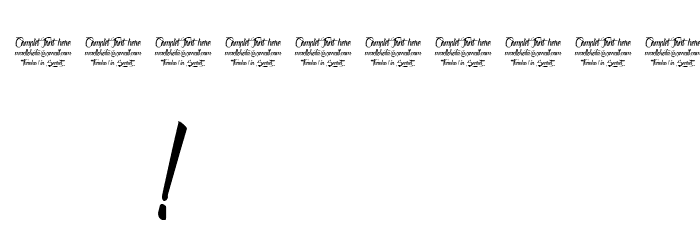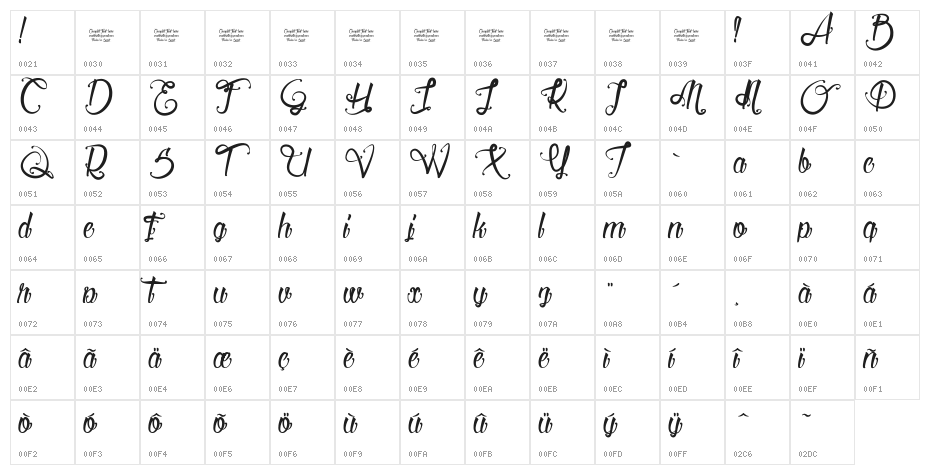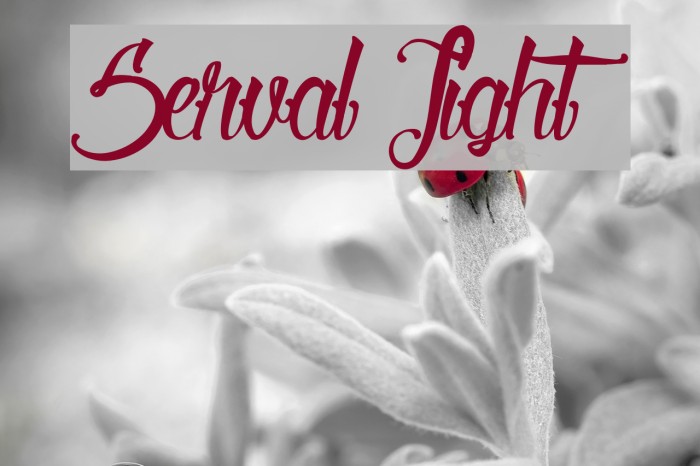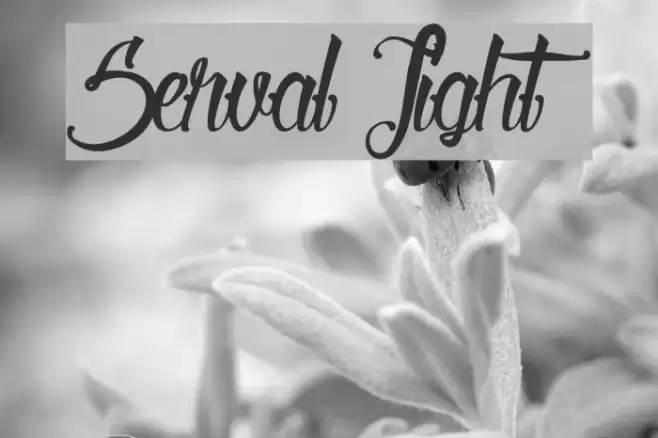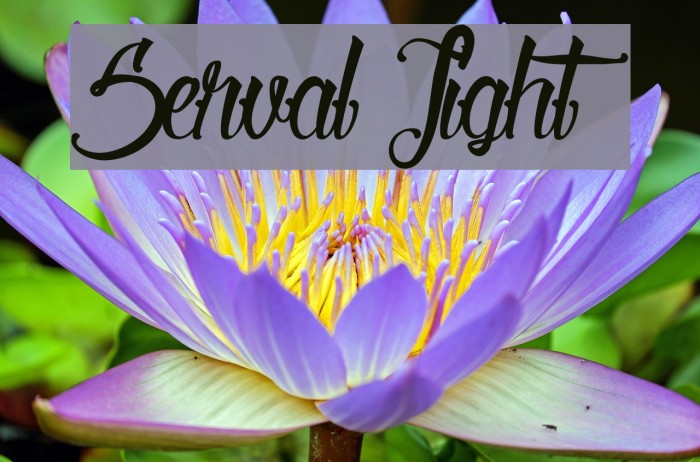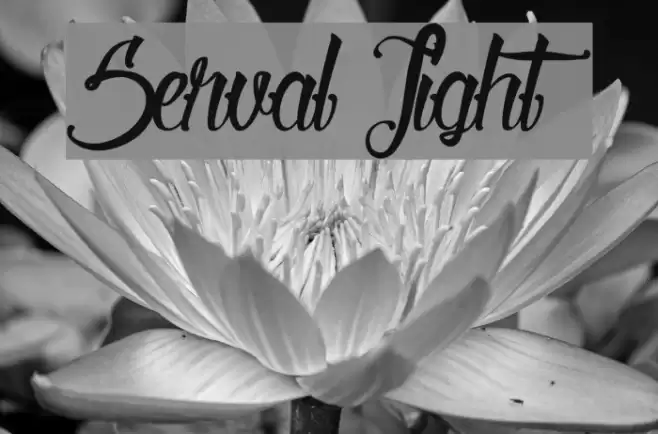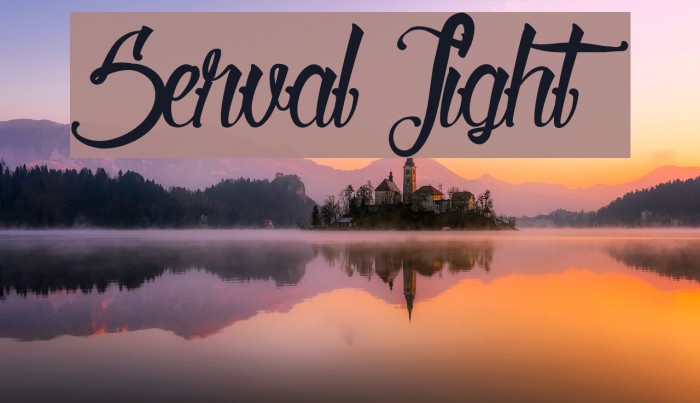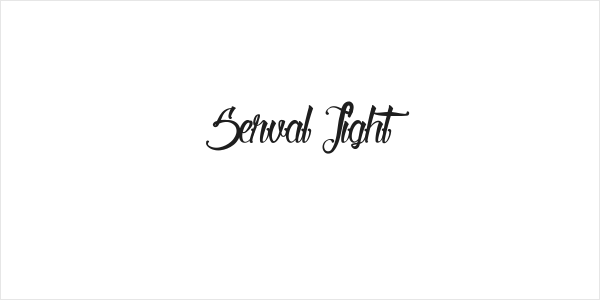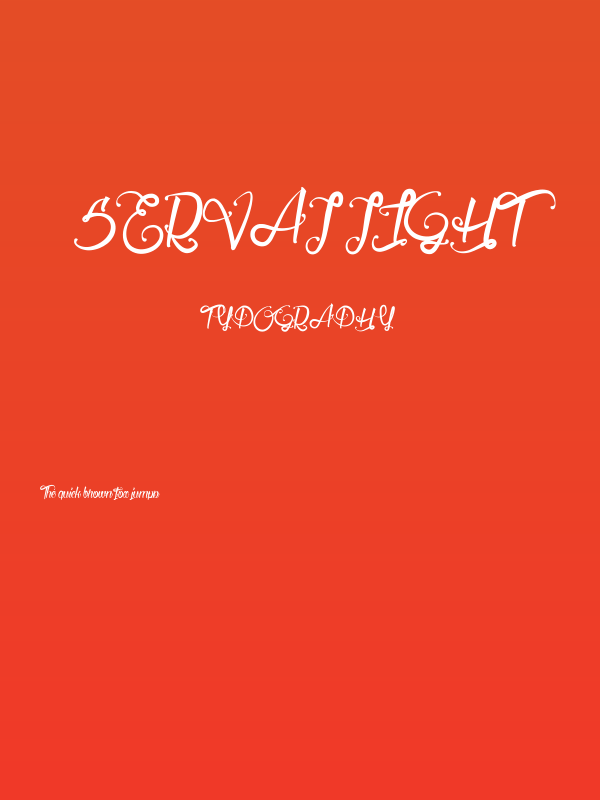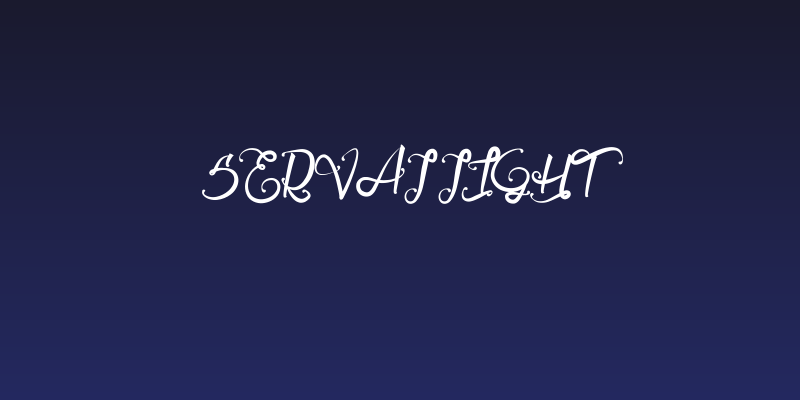
Serval Light Font
Serval Light Description
This font features an elegant and flowing script style with intricate swirls and loops, giving it a sophisticated and decorative appearance. The uppercase letters are adorned with elaborate flourishes, while the lowercase letters maintain a more streamlined yet still ornate design. The characters are closely spaced, enhancing the font's cohesive look. The numbers and special characters are consistent with the overall style, adding a touch of whimsy and charm. This font is ideal for projects that require a touch of elegance and creativity, such as invitations, greeting cards, and branding materials.
Use CaseLogos, Headlines, Decorative text
Proposed ProjectsIdeal for invitations, greeting cards, branding, and decorative projects.